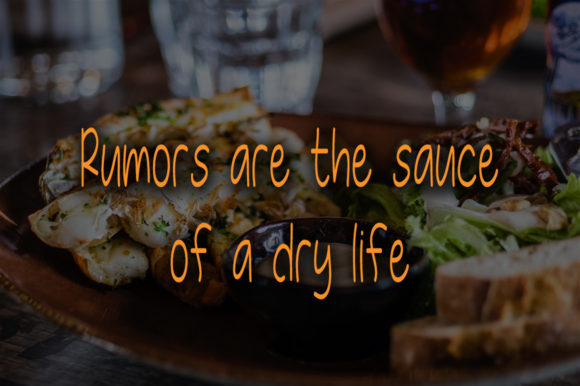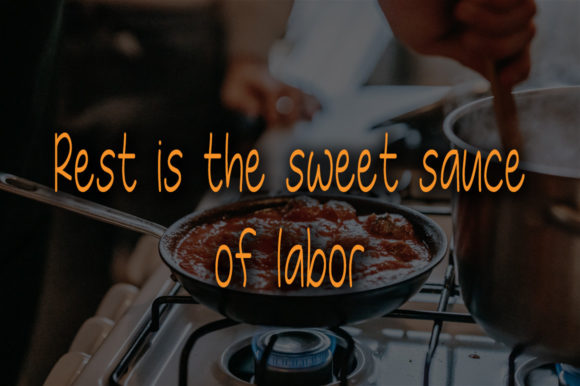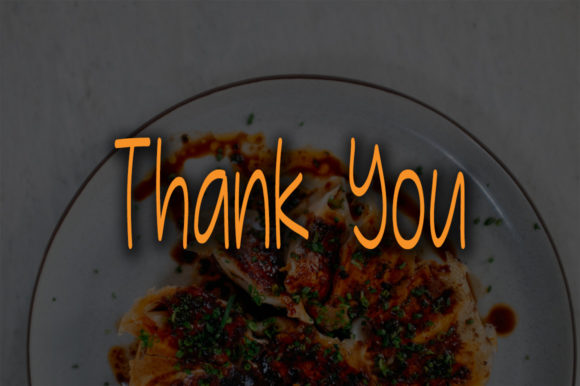
Introduction to Chiken Sauce Font
Have you ever been working on a creative project, and suddenly you find yourself stuck, searching for that perfect font to give your design the extra oomph it needs? I know I have! That’s exactly what happened when I stumbled upon the Chiken Sauce Font. Its whimsical, handwritten style is an instant eye-catcher, making it perfect for anything from wedding invitations to product packaging.
As a designer, I can appreciate the value of having a versatile font like Chiken Sauce Font in my toolkit. With its high-quality design and transparent background, it’s a great resource for any creative project. Whether you’re working on a free download or a paid design, this font is sure to elevate your work. And the best part? It’s available for free, making it an accessible design resource for designers of all levels.
So, what makes Chiken Sauce Font so special? Let’s dive in and explore its features, and discover why it’s become a go-to font for designers looking to add a touch of personality to their work.
Key Features of Chiken Sauce Font
- High-quality design resource ideal for creative projects, such as menu designs, advertisements, and branding materials.
- Includes a variety of font styles, each with a transparent background, allowing for seamless integration into any design.
- Includes a range of font sizes, from 12pt to 72pt, making it suitable for various design applications.
- Features a high-resolution design, suitable for printing at 300 DPI.
- Unique, hand-drawn design elements and subtle textures add a creative touch to any project.
- Perfect for designers looking for a free download of a high-quality font to enhance their creative project.
Honest Review: Chiken Sauce Font
I recently stumbled upon the Chiken Sauce Font while searching for a unique design resource for my creative project. The font is available for free download, which immediately caught my attention.
What works well for this font is its high-quality design and the transparent background, which makes it versatile for use in various graphic design applications. The font is also quite playful, which adds a fun touch to any design project.
Here are some of the key features that I like about the Chiken Sauce Font:
- Unique and playful design
- High-quality graphics
- Transparent background for versatility
However, there are some limitations to consider: ⚠️
- Not ideal for formal or professional designs
- May not be suitable for text-heavy designs
Overall, I think the Chiken Sauce Font is a great addition to any design resource collection. It’s perfect for creative projects that require a fun and playful touch. While it may not be suitable for all design needs, it’s definitely worth considering for the right project.
Tips for Getting the Most Out of Chiken Sauce Font
To maximize the use of Chiken Sauce Font, experiment with different font sizes, colors, and styles to find the perfect combination that suits your design needs.
Chiken Sauce Font is ideal for:
- Food and beverage branding
- Restaurant and cafe menus
- Marketing and advertising materials
Compared to Chiken Sauce Font, Pacifico has a more refined and polished look, making it suitable for more formal and professional designs. While Chiken Sauce Font is often used for casual and playful projects, Pacifico is better suited for creative projects that require a level of sophistication.